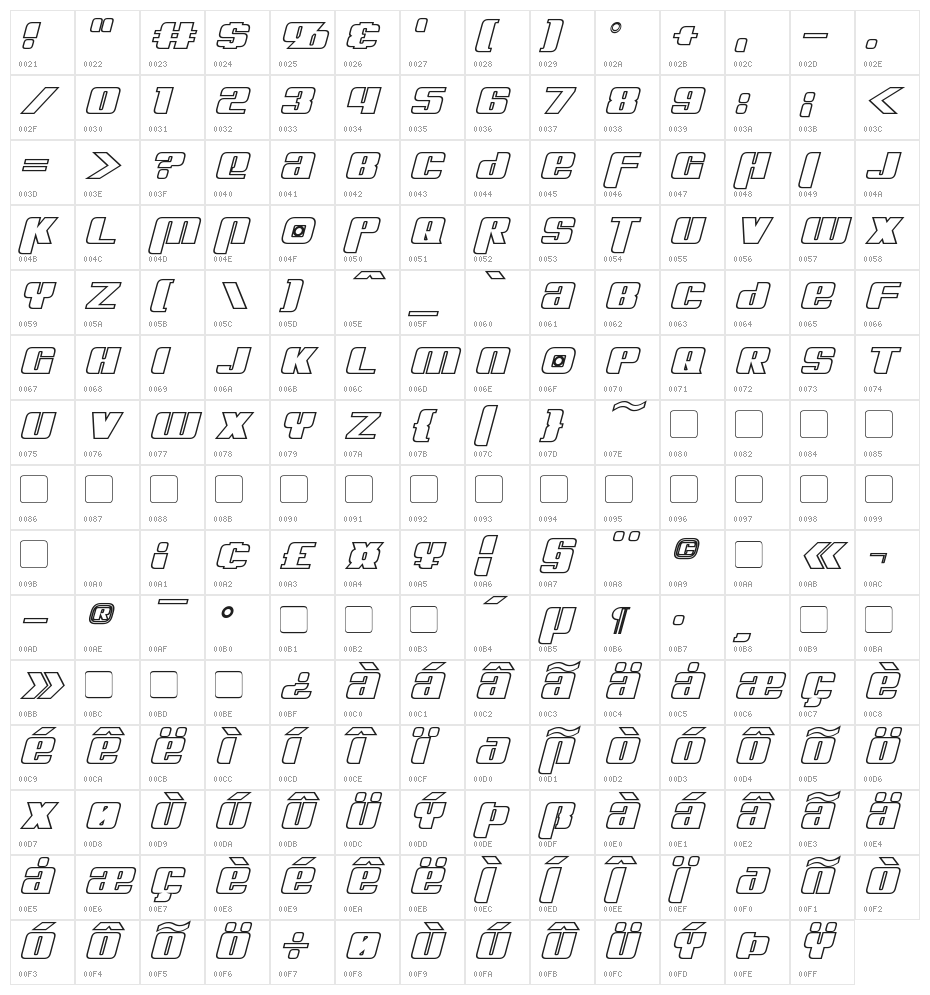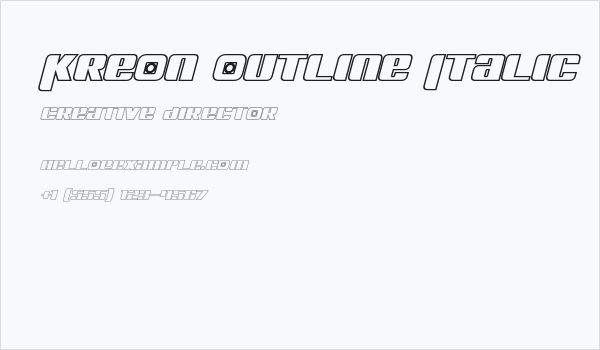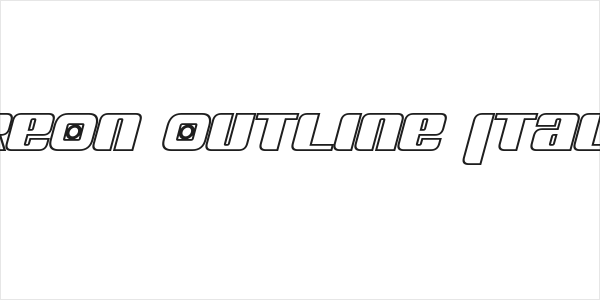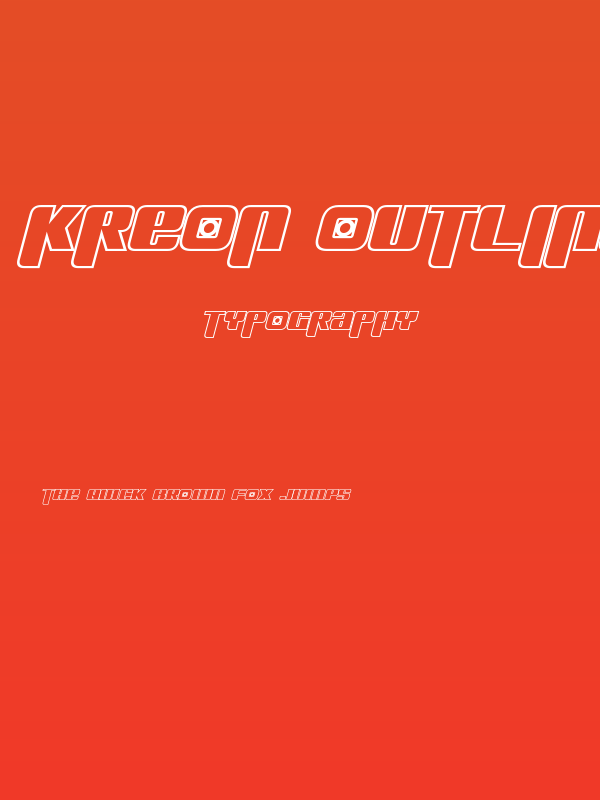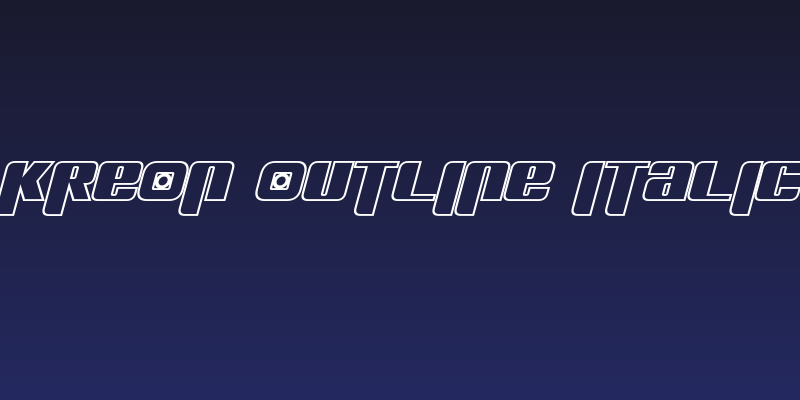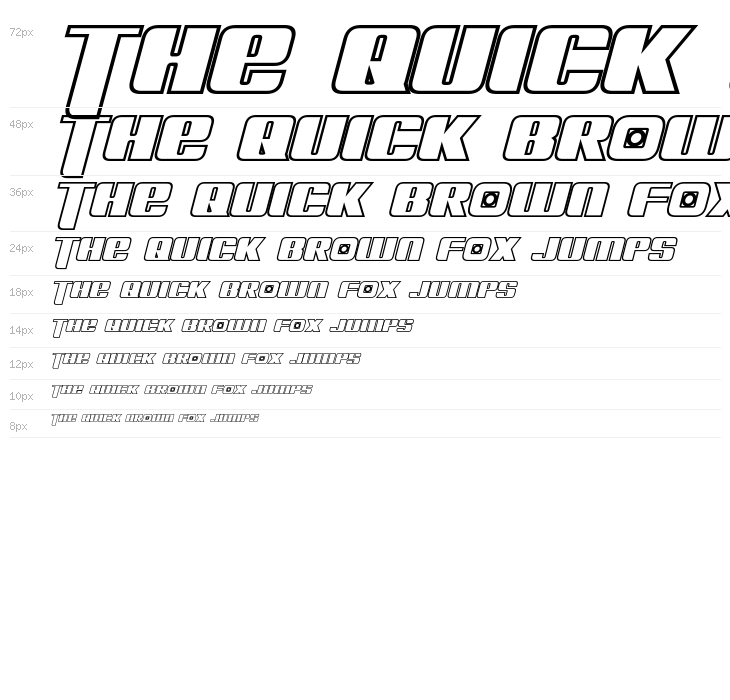
Kreon Outline Italic Font
Kreon Outline Italic Description
This font features a bold, outlined style with a modern and geometric aesthetic. The characters are italicized, giving them a dynamic and forward-leaning appearance. Each letter is constructed with clean, straight lines and sharp angles, creating a futuristic and technical feel. The outline design adds a sense of depth and dimension, making the characters stand out prominently. The uppercase and lowercase letters maintain a consistent style, with uniform stroke widths and a balanced structure. Numbers and special characters are designed to match the overall theme, ensuring a cohesive look across all elements.
Proposed ProjectsIdeal for futuristic branding, tech-related designs, modern posters, and digital artwork.